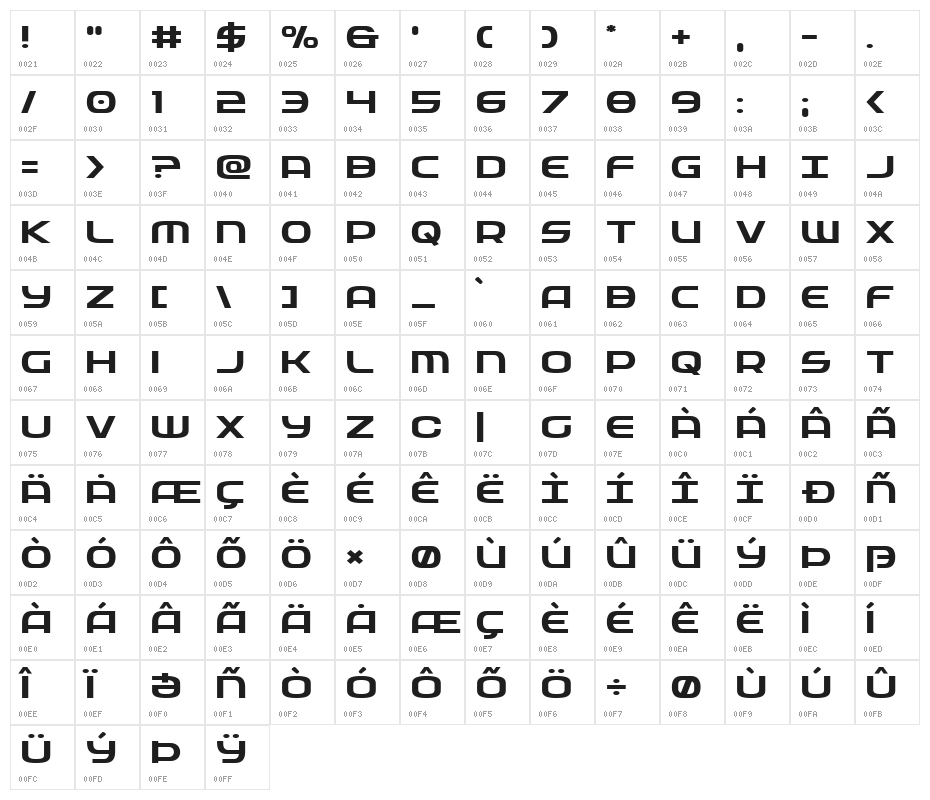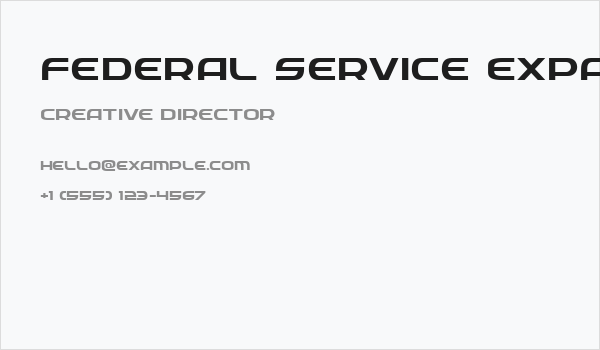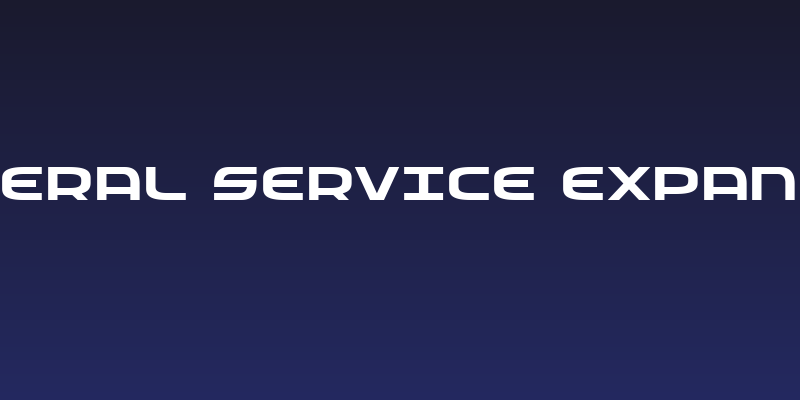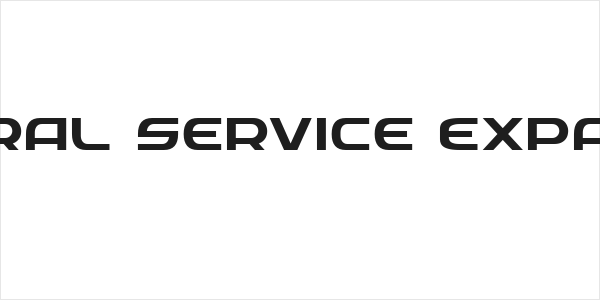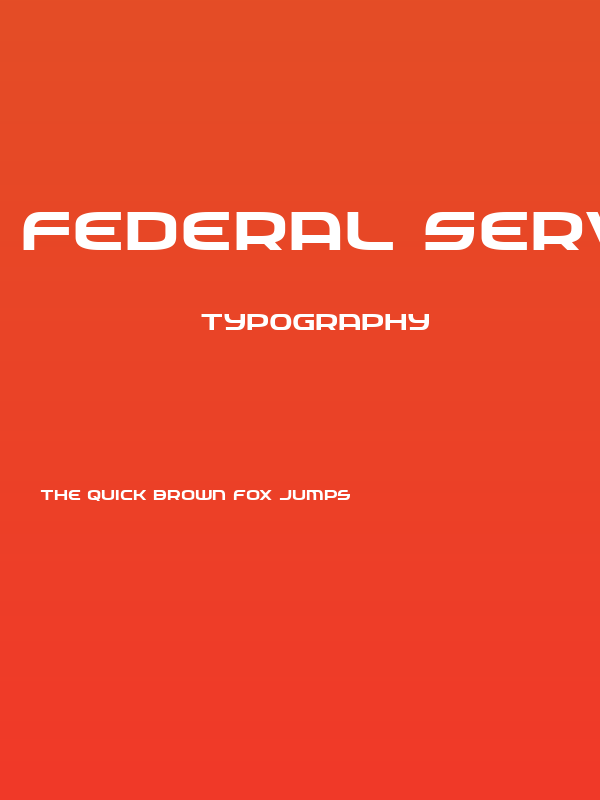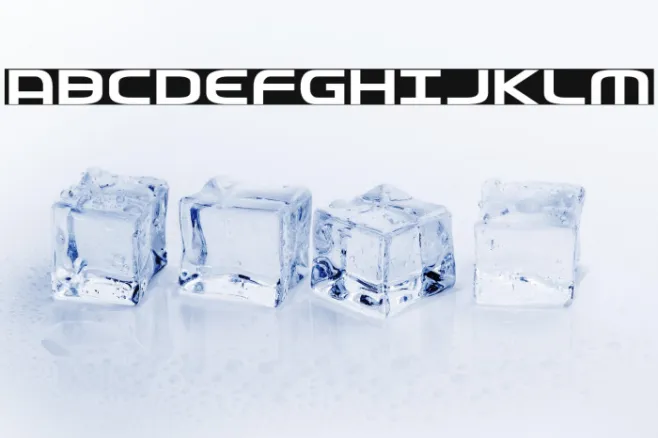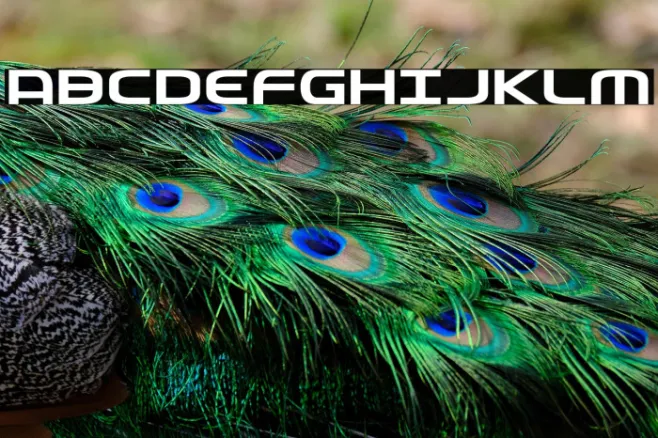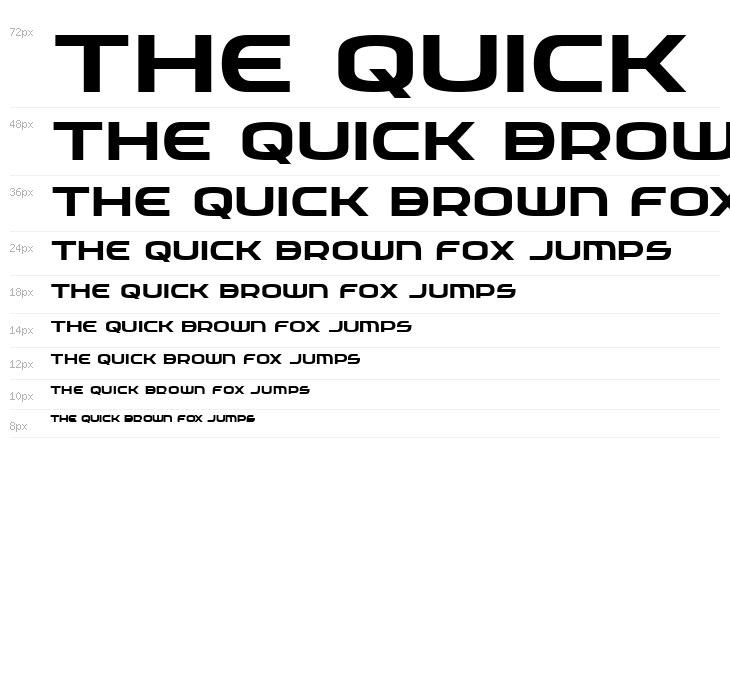
Federal Service Expanded Font
Federal Service Expanded Description
This font features a bold and modern design with a futuristic flair. The characters are expanded, giving them a wide and open appearance. The strokes are consistent in thickness, providing a uniform look across all characters. The geometric shapes and clean lines contribute to its contemporary style, making it suitable for digital and print media. The font maintains a balance between readability and aesthetic appeal, with slightly rounded edges that soften the overall look. The numbers and special characters are designed to match the alphabet's style, ensuring cohesion throughout.
| Use Case | Headlines, Logos, Digital interfaces |
| Proposed Projects | Ideal for technology branding, digital interfaces, futuristic posters, and modern advertising campaigns. |